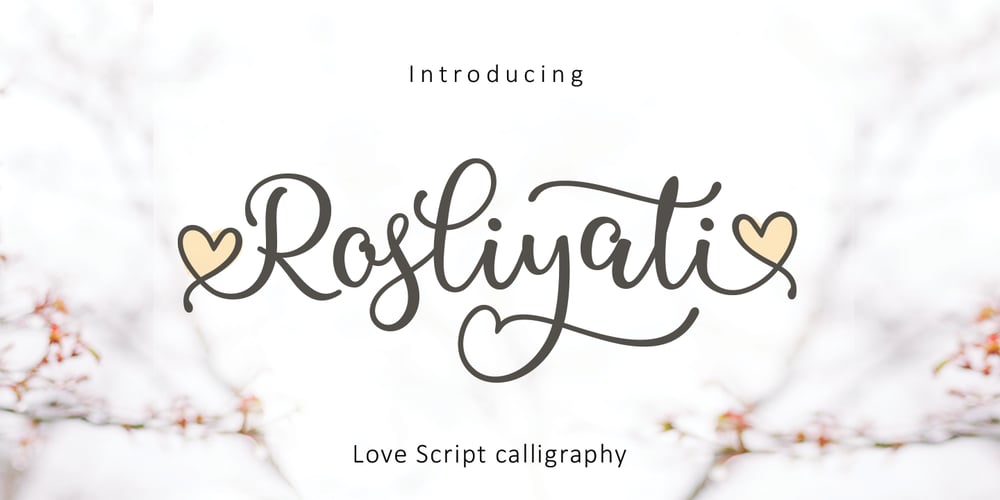
Rosliyati Font Family was designed by Nasrullah and published by Sulthan Studio. Rosliyati contains 1 styles and family package options. Rosliyati script -font that is fresh, funny, interesting, cute with lots of heart characters and also very beautiful with alternatives, this font looks natural, elegant, and perfect for extraordinary projects.Rosliyati script is suitable for various products such as invitations, product packaging, offers, product design, crafters, labels, photography, watermarks, logos & branding. Everything can be accessed using software that supports Opentype, such as Adobe Indesign, Adobe CS Illustrator, Adobe Photoshop CC, and Corel Draw.